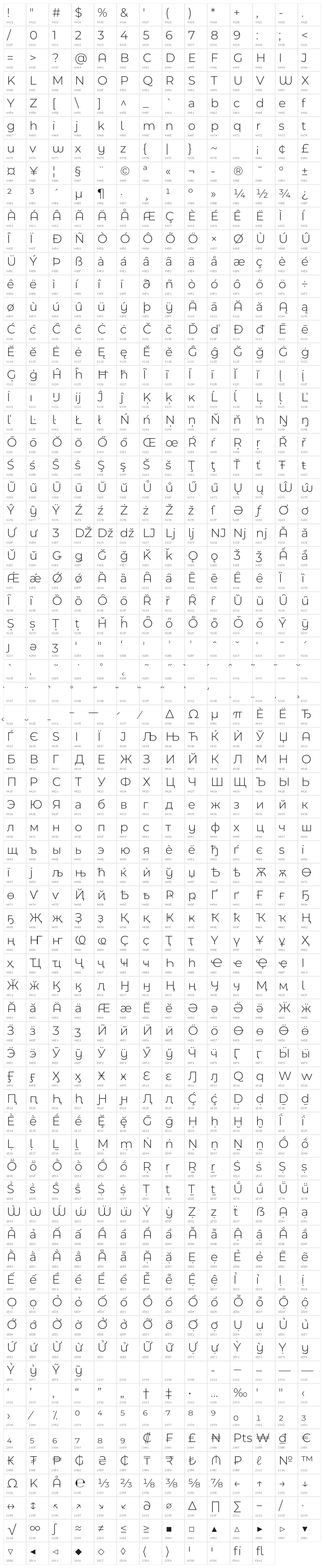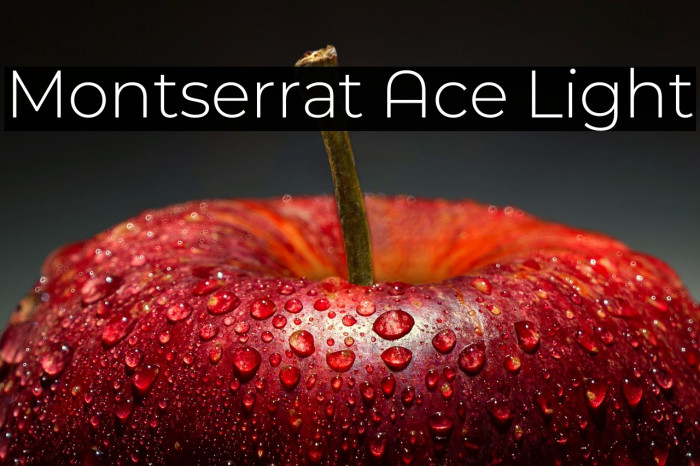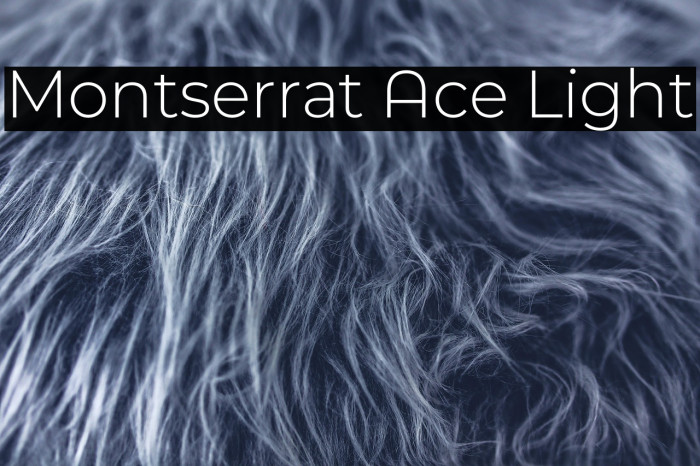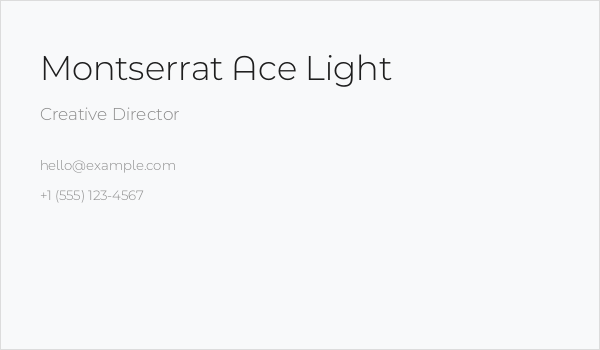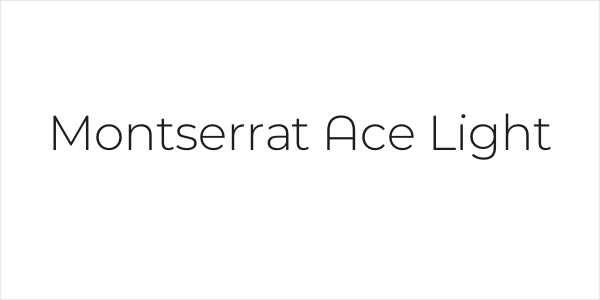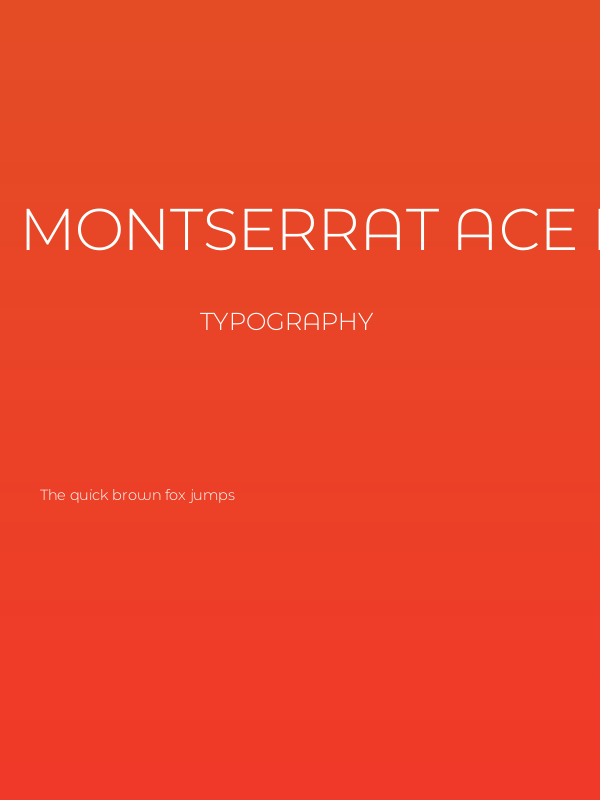
Montserrat Ace Light Font
Montserrat Ace Light Description
This font features a clean and modern sans-serif design, characterized by its geometric shapes and balanced proportions. The letters exhibit a uniform stroke width, contributing to a harmonious and minimalist appearance. The uppercase and lowercase letters maintain a consistent style, with rounded edges that soften the overall look. The numerals and special characters are designed to complement the alphabet, ensuring readability and aesthetic appeal. This font's simplicity and clarity make it versatile for various design applications.